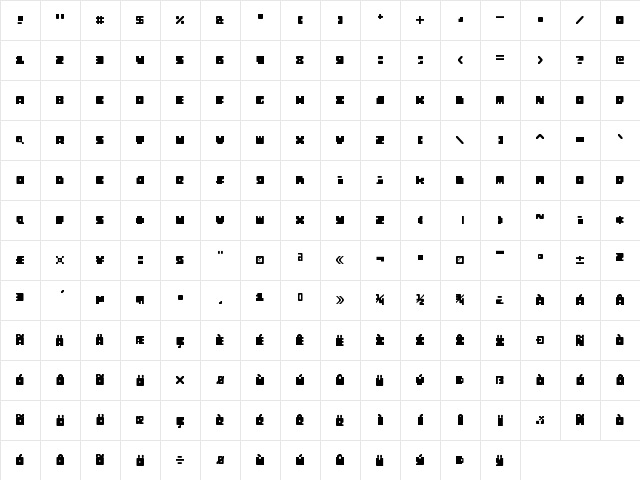
Monosquare Extended Regular
Design Context for Monosquare Extended Typeface
Monosquare Extended uses fixed-width spacing throughout, giving it the structured, systematic character associated with coding environments and technical documentation.
Pro Tip: Pair Monosquare Extended with a proportional sans for UI contexts where code-style labels and regular body copy need to coexist.